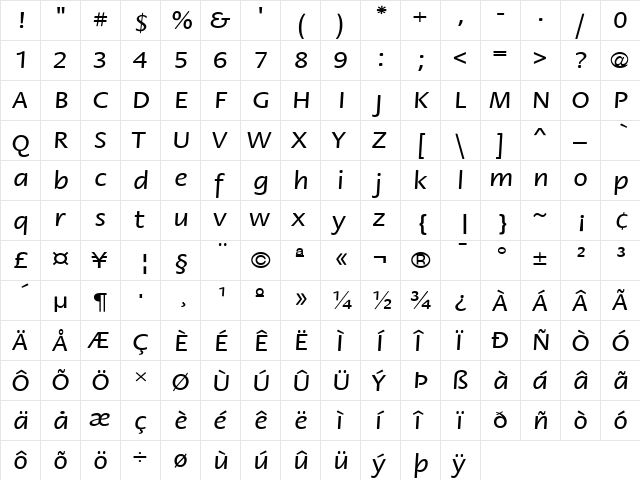
FloraExt Normal Font Preview
FloraExt Normal
Design Context for FloraExt Typeface
FloraExt is a composed and adaptable typeface that performs quietly and consistently across a wide range of design contexts.